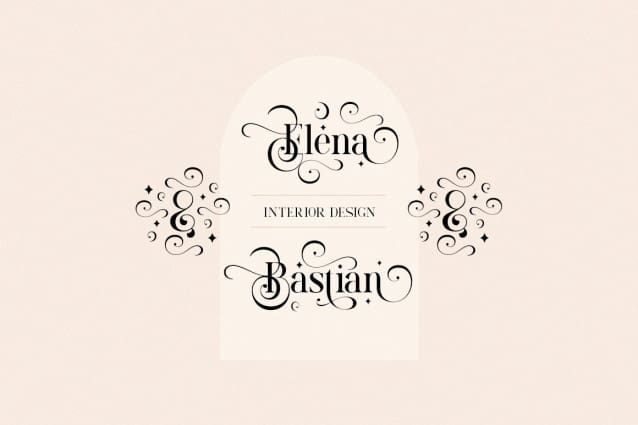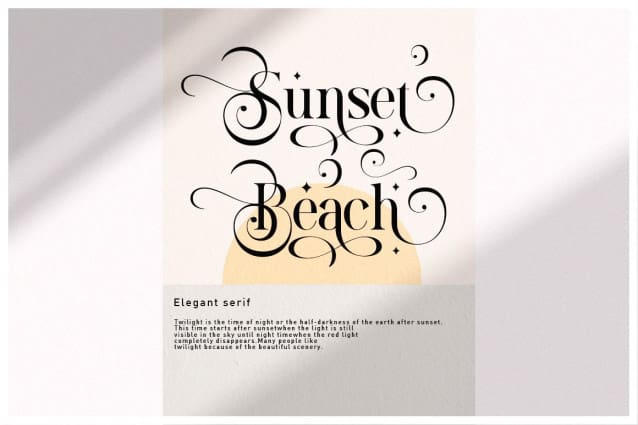
Quicks Sweet Love Font
Quicks Sweet Love Font is a stylish serif font, described by an elegant touch, perfect for your favorite projects. Fall in love with its incredibly distinct and timeless style and use it to create spectacular designs! This font is PUA encoded which means you can access all the glyphs and ligatures with ease!